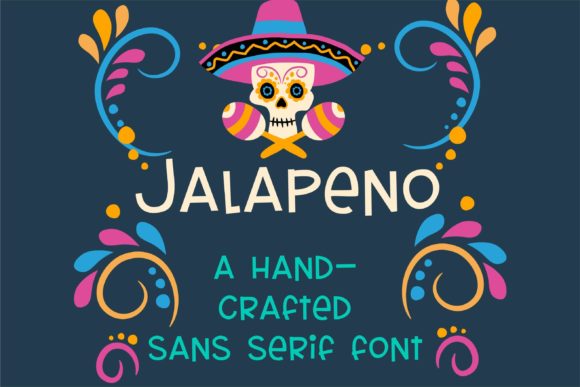
Jalapeno Font
Embark on a typographic journey with Jalapeno Font, a delightful sans serif typeface destined to capture hearts and imaginations. Inspired by the vibrant spirit of childhood, this hand-crafted font dances across the page with playful characters and a touch of sophistication.
Step into a world where learning and fun intertwine seamlessly. Jalapeno Font is meticulously designed to cater to the needs of young readers, guiding them through the world of words with its clear, legible letterforms. Its generous spacing and smooth curves ensure effortless reading, fostering a love for literature and knowledge.
Unleash your creativity with Jalapeno Font, a versatile font family that adapts effortlessly to a myriad of projects. Its playful nature lends itself perfectly to children's books, posters, and educational materials, while its unique charm adds a touch of whimsy to branding, packaging, and social media designs.
Transport your audience to a world of wonder with Jalapeno Font. Its captivating characters bring stories to life, while its distinct style leaves a lasting impression. Engage your readers, captivate your customers, and make a statement that resonates with your brand's essence.